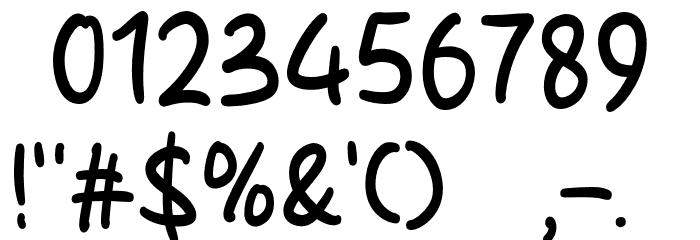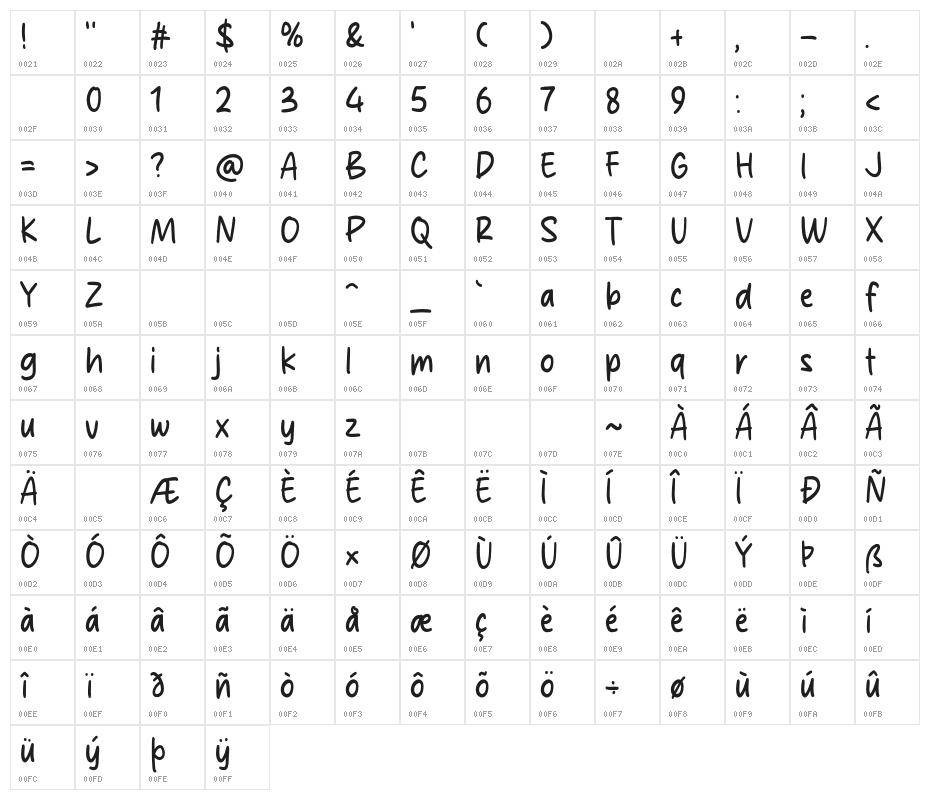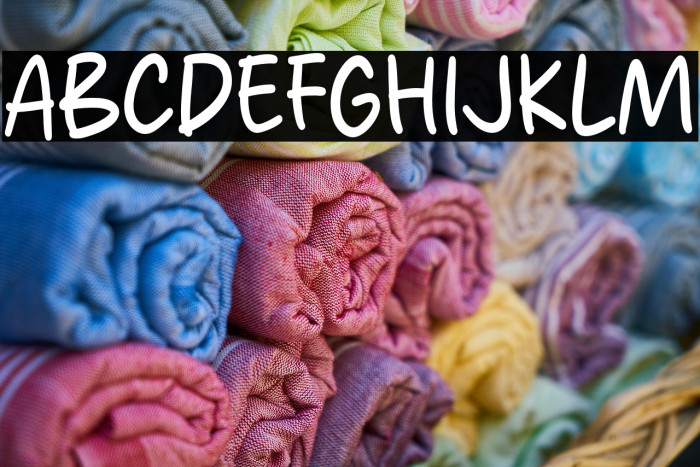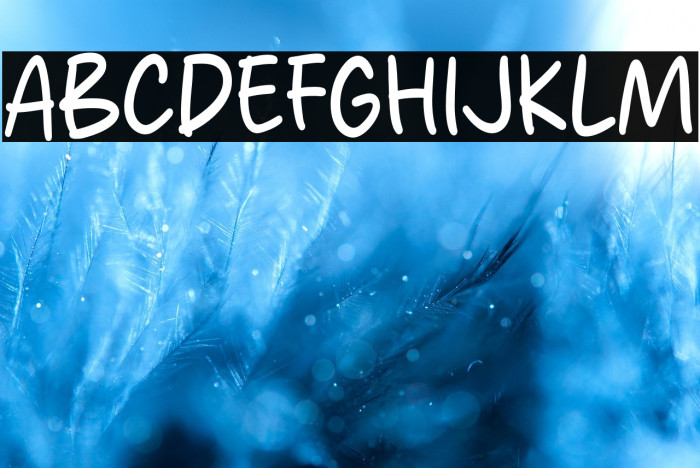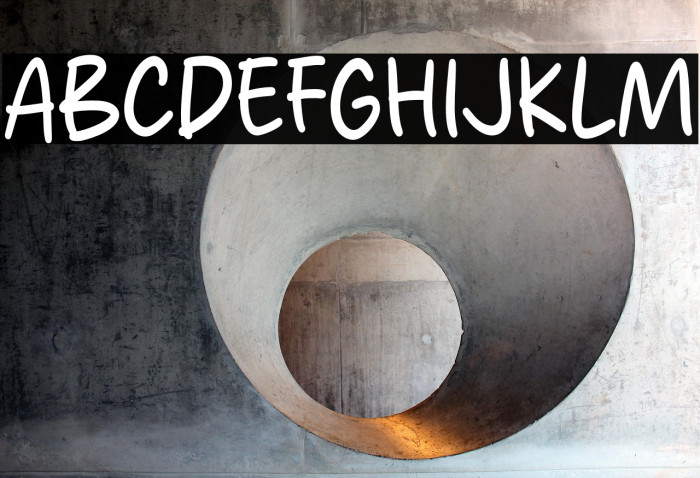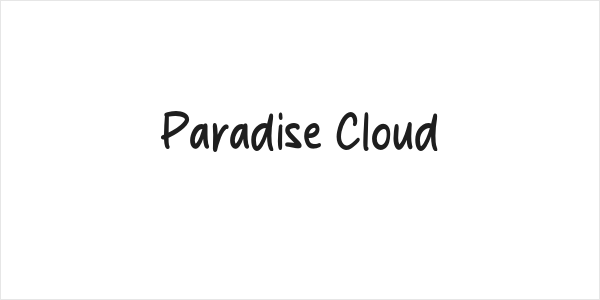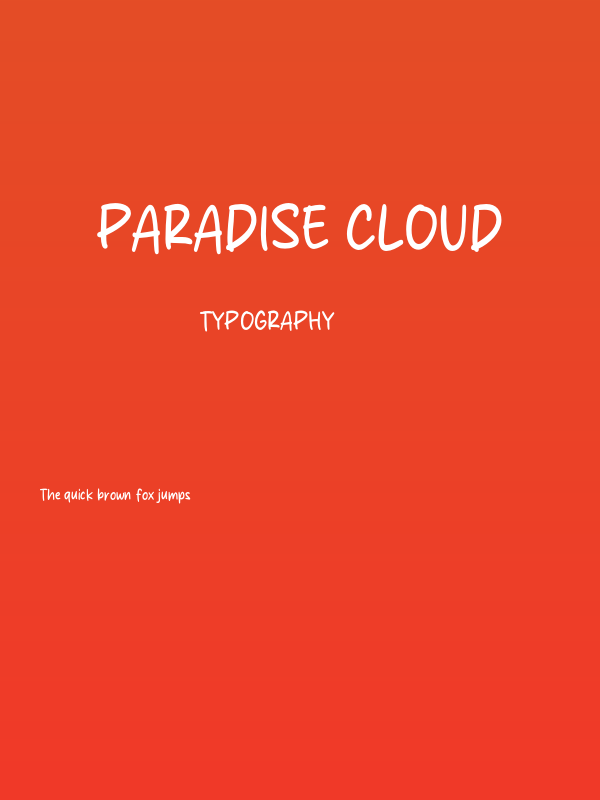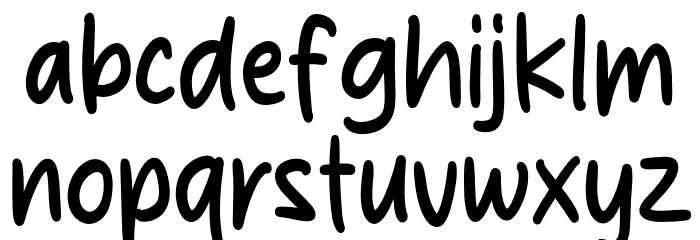
Paradise Cloud Font
Paradise Cloud Description
This font exudes a playful and casual handwritten style, characterized by its smooth, rounded strokes and slightly irregular letterforms that give it a friendly and approachable appearance. The uppercase and lowercase letters maintain a consistent flow, while the numerals and special characters complement the overall aesthetic with their simple yet expressive design. The font's informal nature makes it ideal for projects that require a personal touch or a relaxed vibe.
| Use Case | Headlines, Informal text, Creative projects |
| Proposed Projects | Ideal for greeting cards, children's books, informal branding, and social media graphics. |